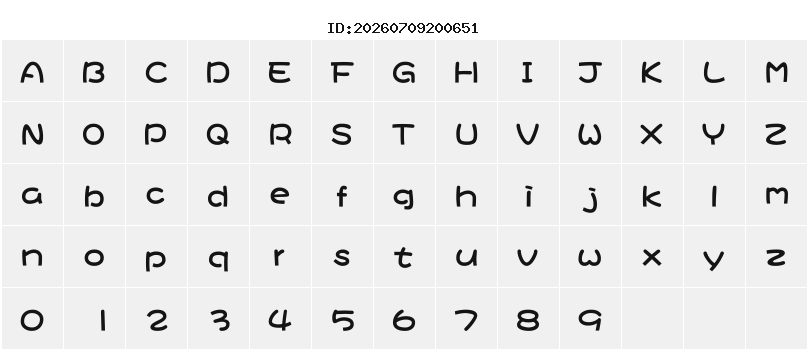
華康方圓體 Preview
• Font Name: 華康方圓體
• Font ID: 華康方圓體
• Full Font Name: 華康方圓體
About 華康方圓體.ttf
華康方圓體.ttf is a modern, elegant sans-serif font designed for ultimate readability and visual harmony. Perfect for branding, headlines, web design, and print materials.